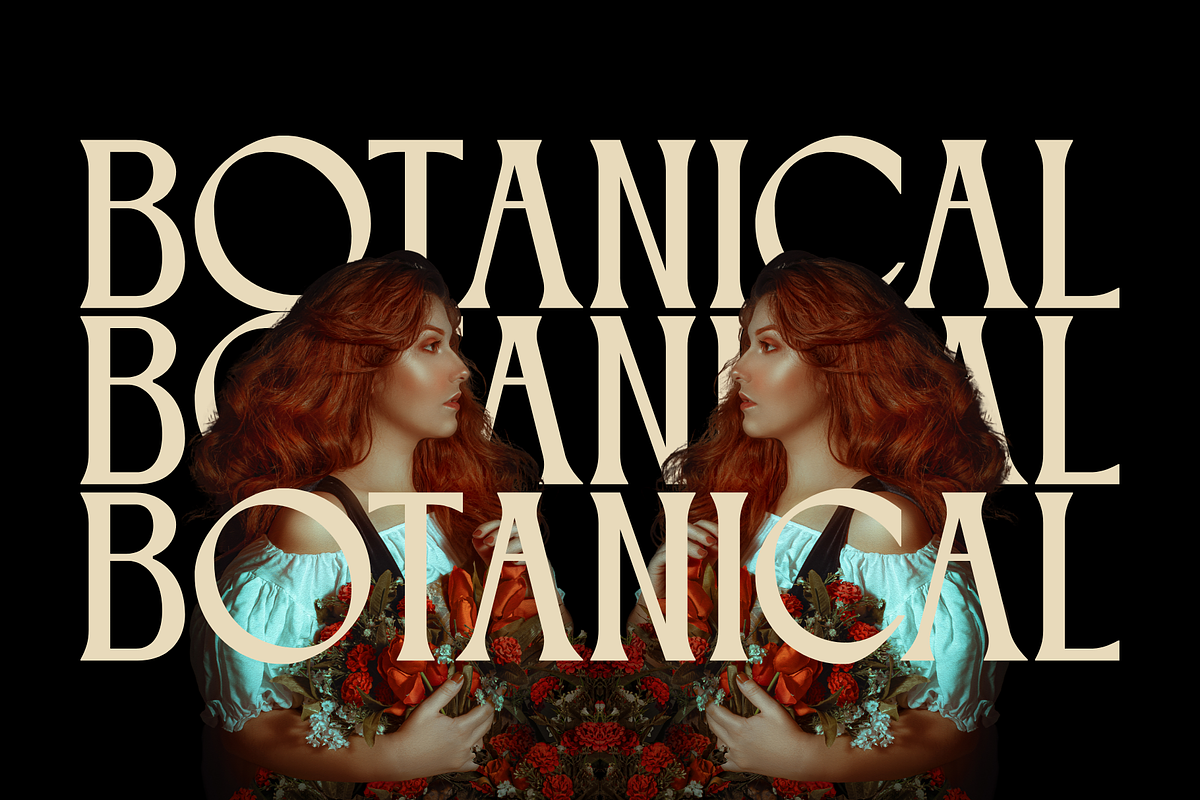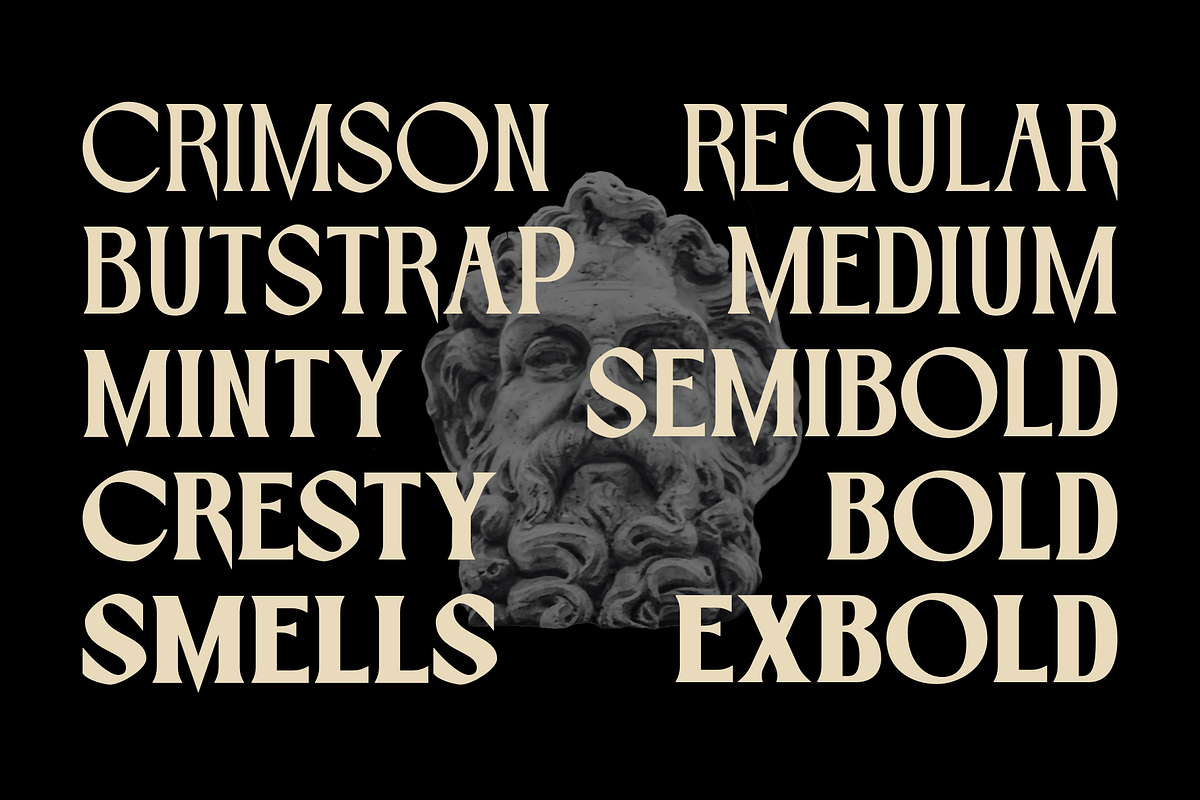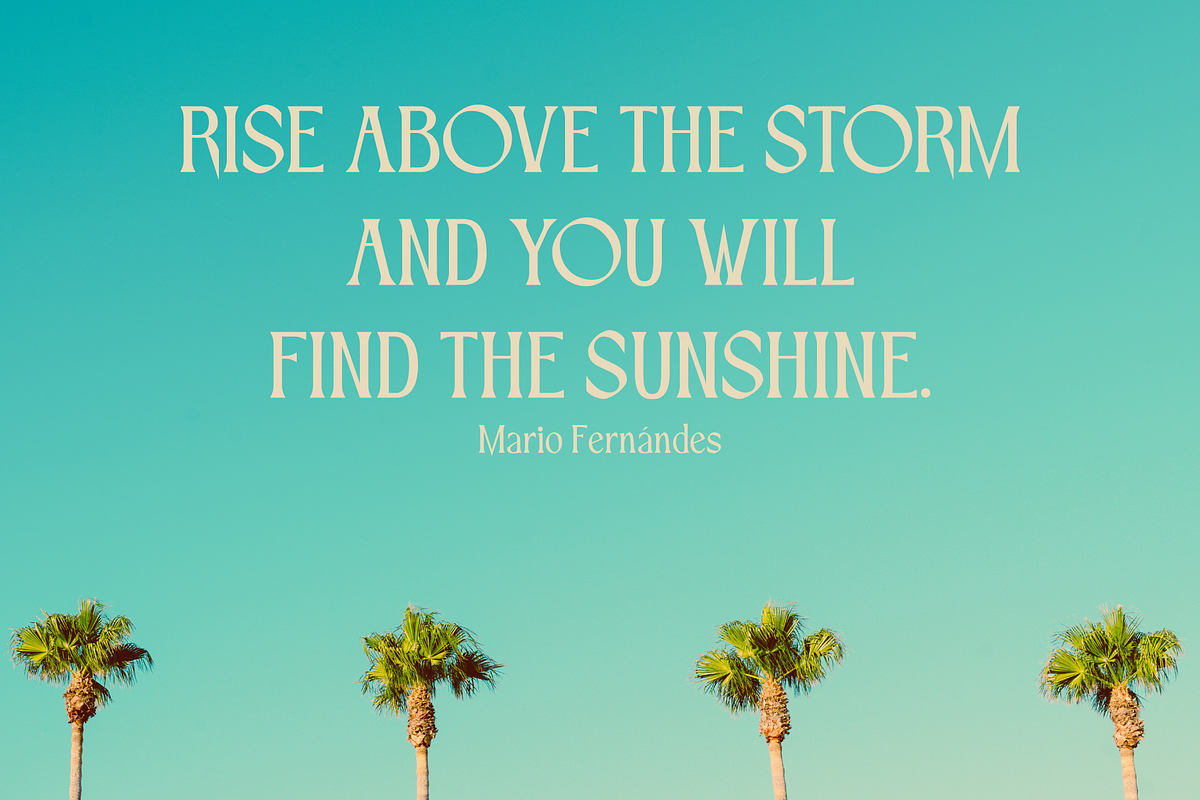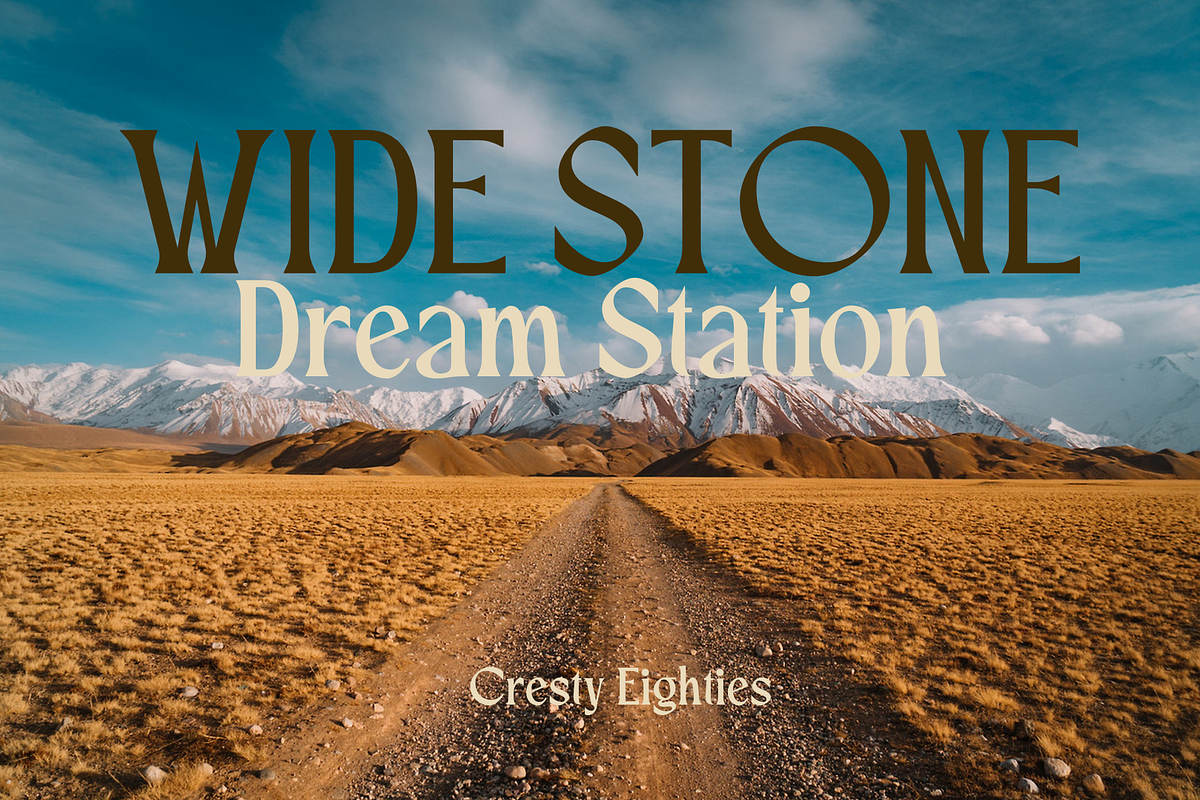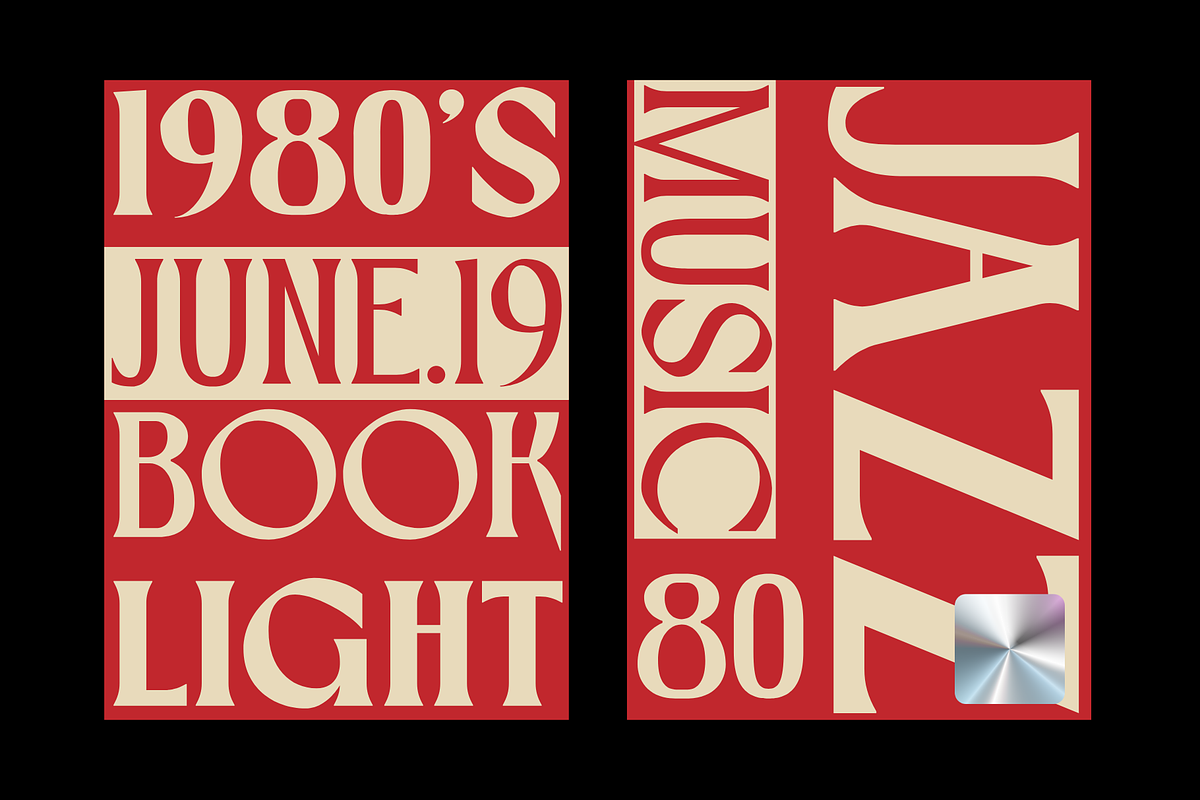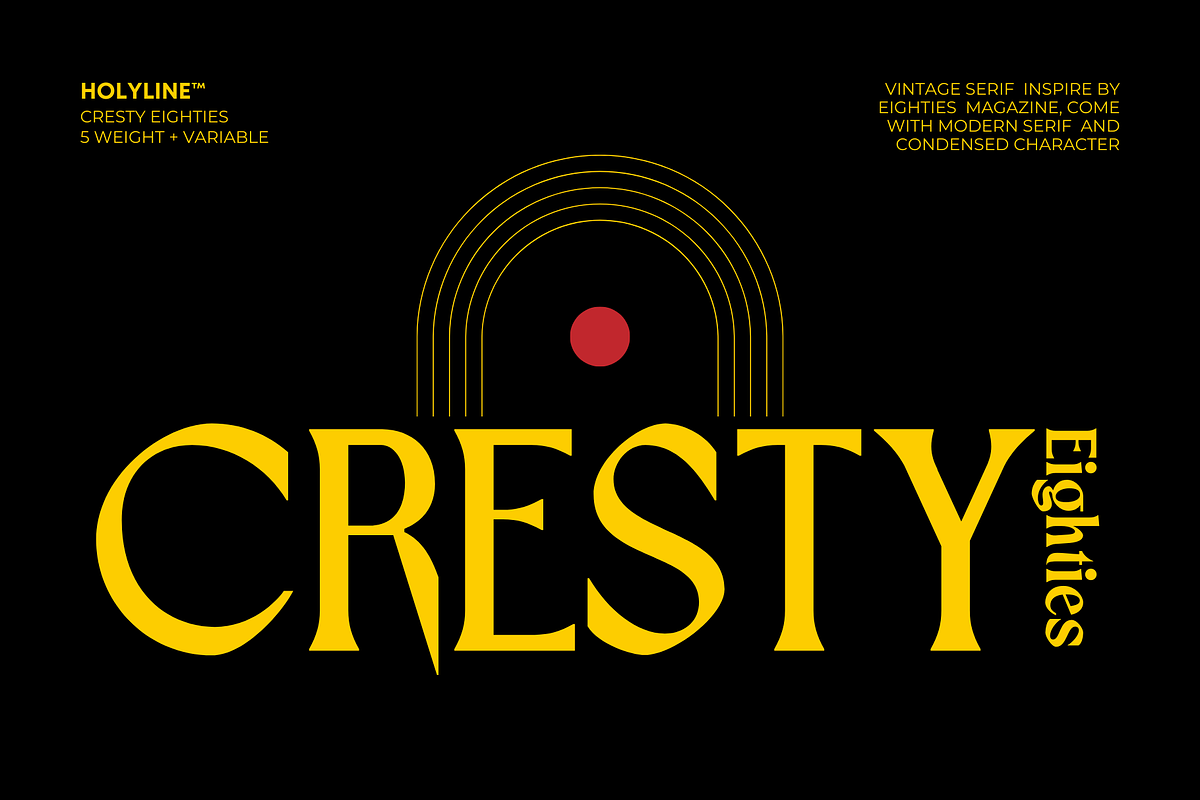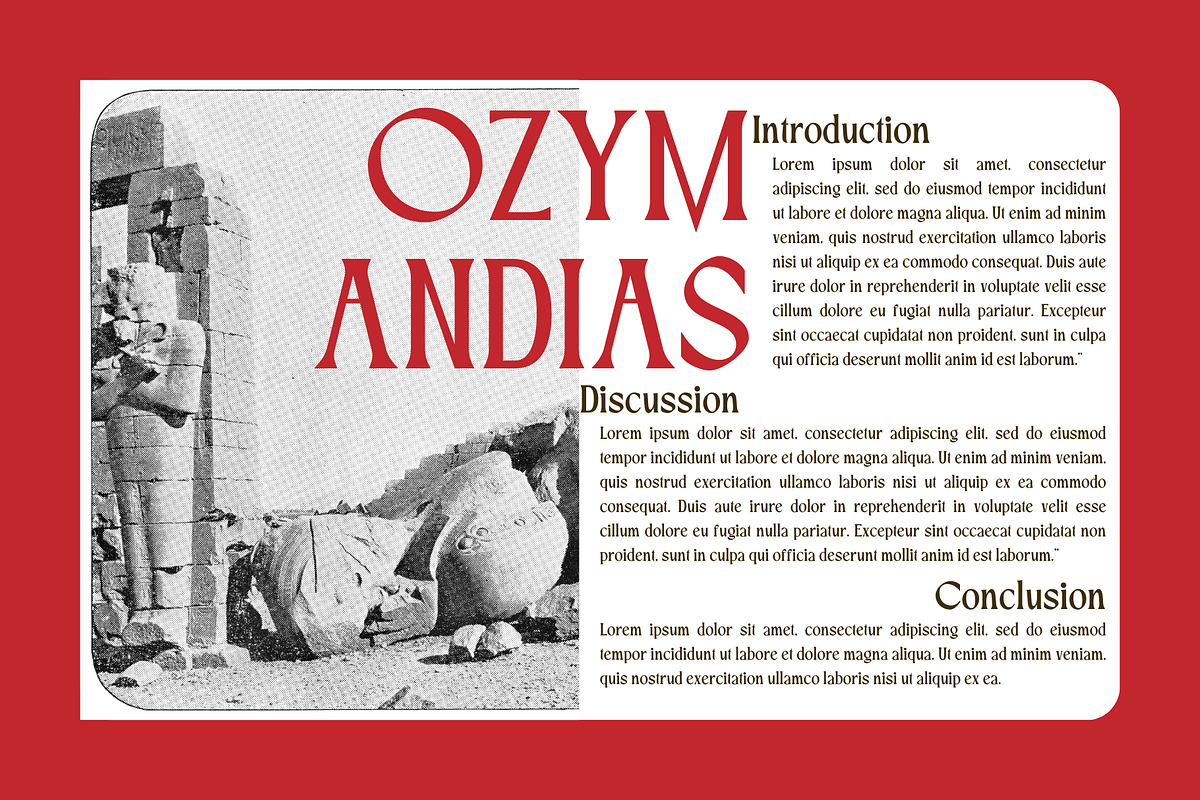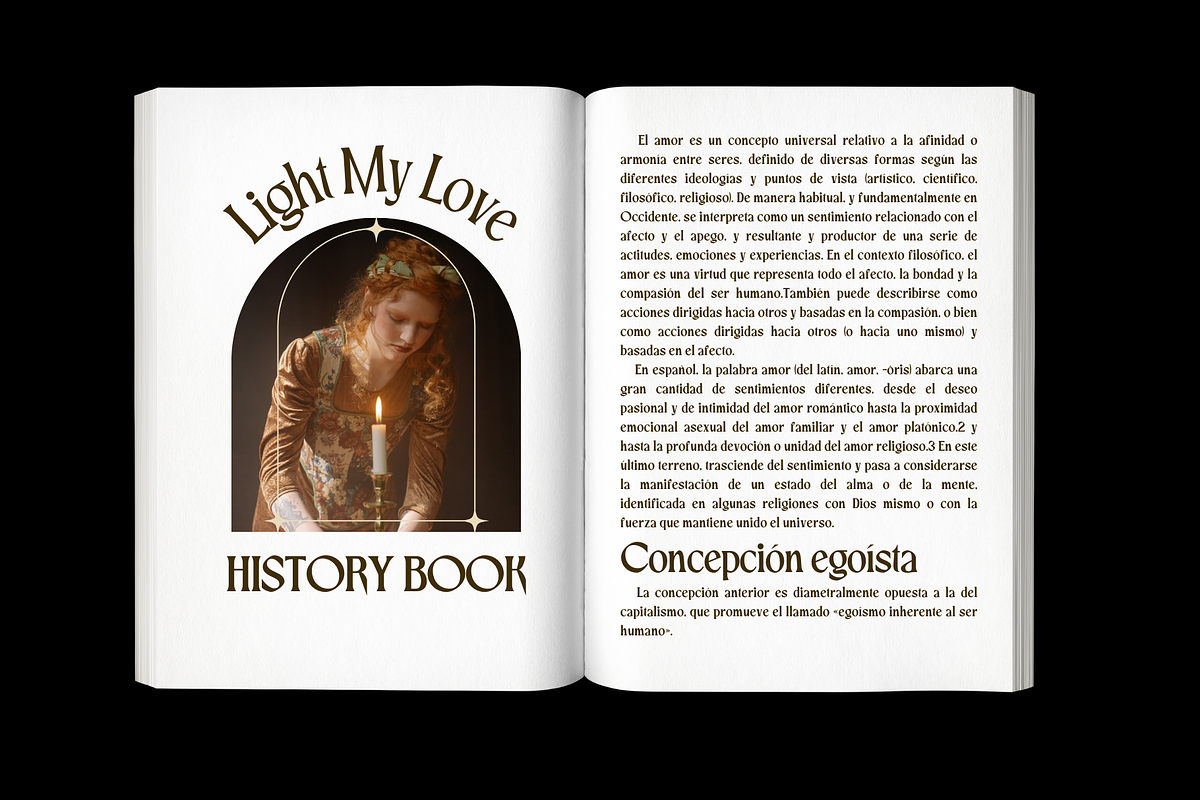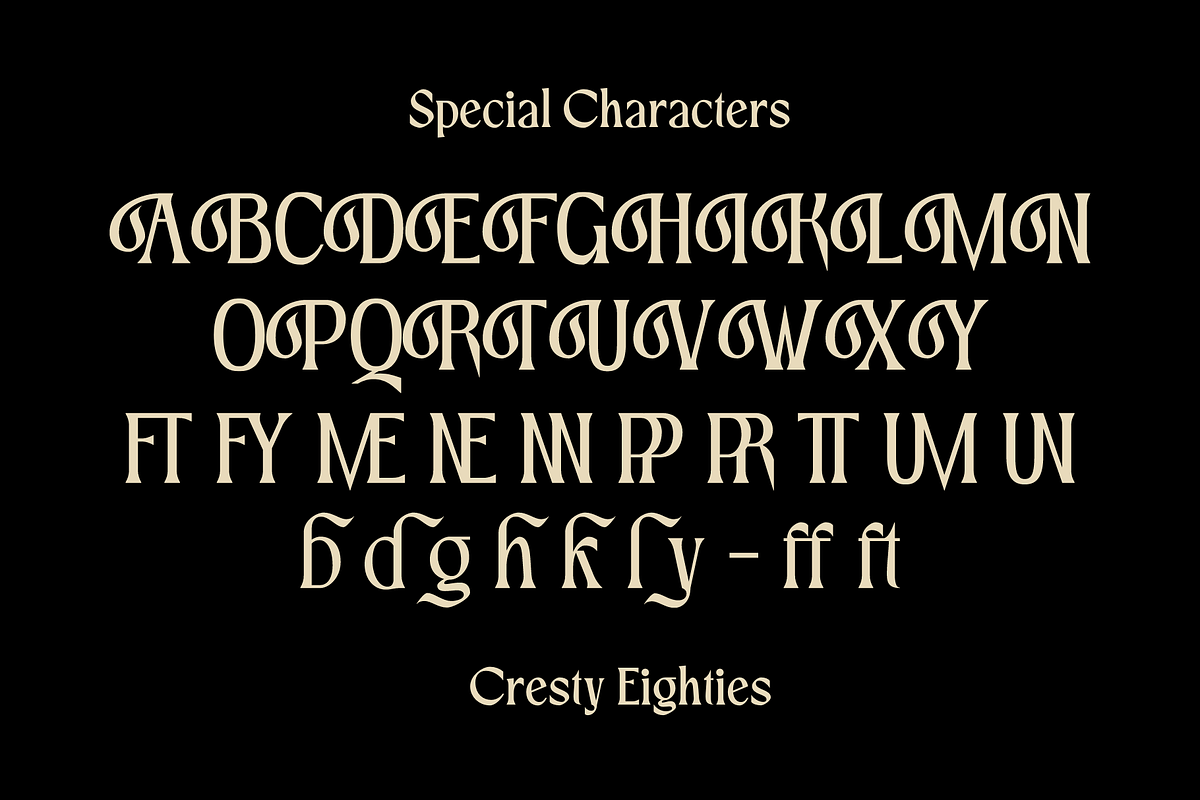
Cresty Eighties - Retro Typeface
Cresty Eighties is a retro condensed serif family with a modern touch. This font inspired by retro magazine and 80s handcrafted lettering.This font comes in 5 weight from regular to extra bold + variable support. Cresty Eighties designed with Stylistic Alternates and Ligature in some characters that allows you to mix and match pairs of letters to fit your design. Cresty Eighties perfect for headline, sub headline ,custom logo,packaging, quote, merchandise, sticker, badges,social media posts, label, album cover and anything for your creativity. Cresty Eightie is perfect font if you want something new with your project, you can play the 5 fonts style, and you can pairing this font with another font you like, its very satisfy. So happy creating!